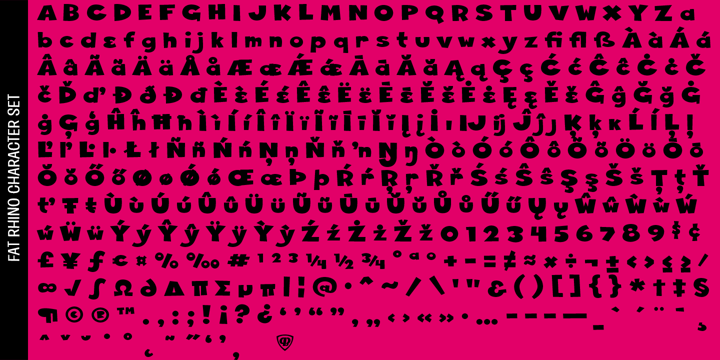
Fat Rhino™
by Pink Broccoli
The Fat Rhino Font Family was designed by Phil Bracco and published by Pink Broccoli. Fat Rhino contains 1 styles.
Fat Rhino PB is a heavyweight playful display font with a children’s comic feel. Big, bold, and built for instant impact, it’s perfect for loud headlines, toy and game branding, kidlit covers, snack packaging, posters, stickers, and cheerful merch. The chunky shapes keep it readable even when used large and loud, while the playful personality makes it feel friendly rather than aggressive—ideal when you want bold type that still feels kid-safe and fun.